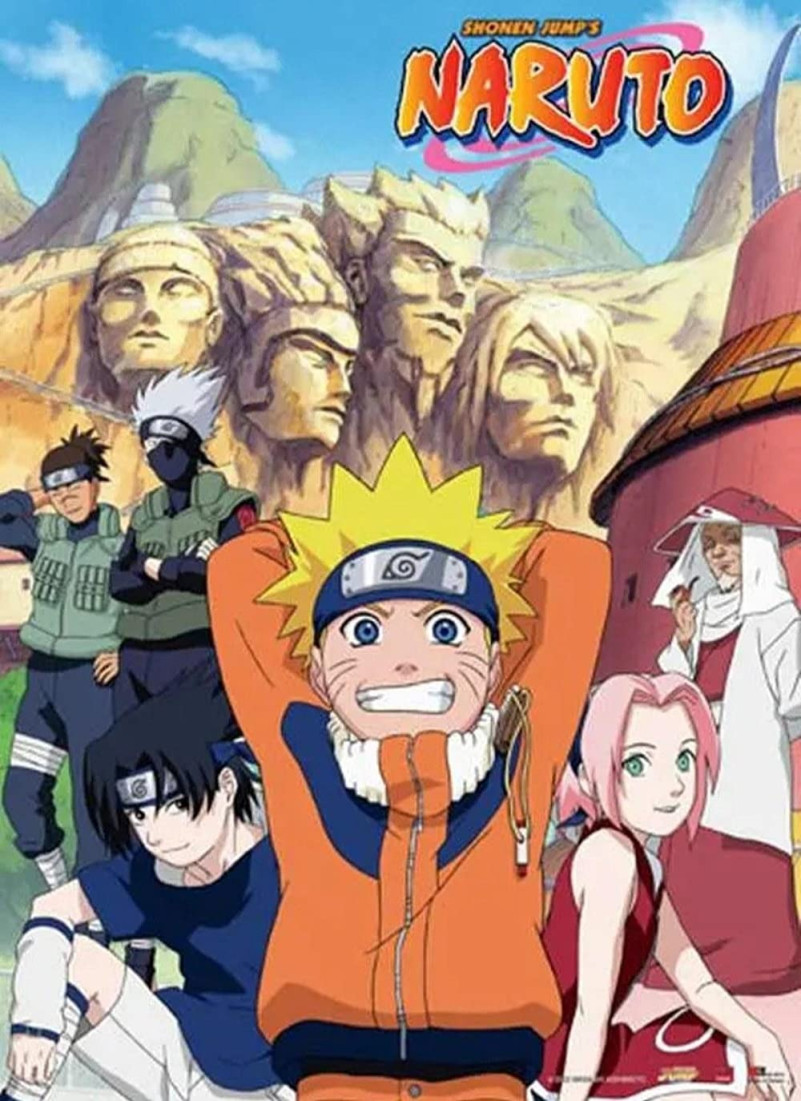
Naruto Font
Naruto is a Japanese manga and anime series written and illustrated by Masashi Kishimoto. It tells the story of Naruto Uzumaki, a young ninja who seeks recognition from his peers and dreams of becoming the Hokage, the leader of his village. The story is told in two parts – the first set in Naruto’s pre-teen years, and the second in his teens. The series is based on two one-shot manga by Kishimoto: Karakuri (1995), which earned Kishimoto an honorable mention in Shueisha’s monthly Hop Step Award the following year, and Naruto (1997).
“Ninja Naruto” is the font used in Naruto poster.